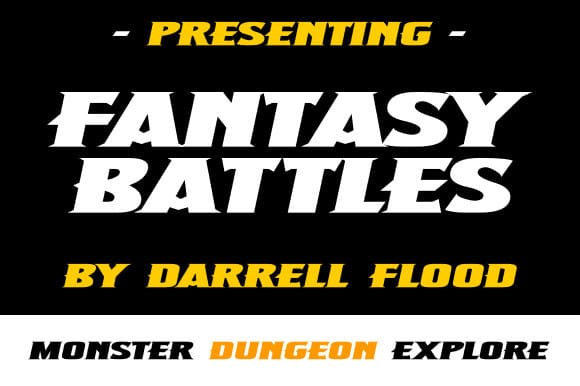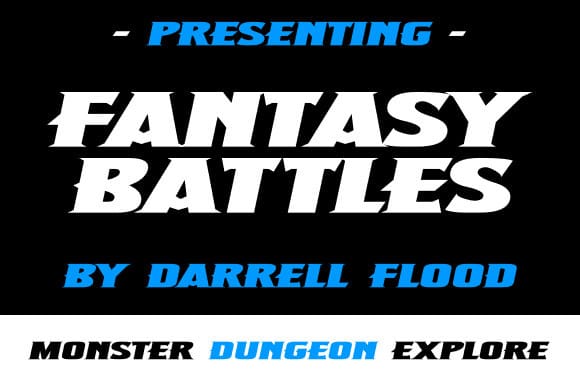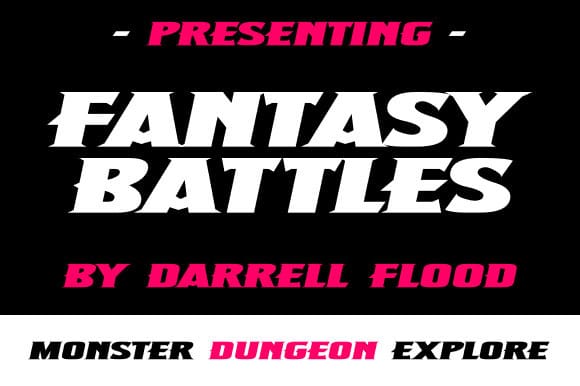
Fantasy Battles Font
Fantasy Battles Font is a sharp, spiked, fantasy style font. Perfect for dungeon explorations, epic quests and journeys into the unknown!